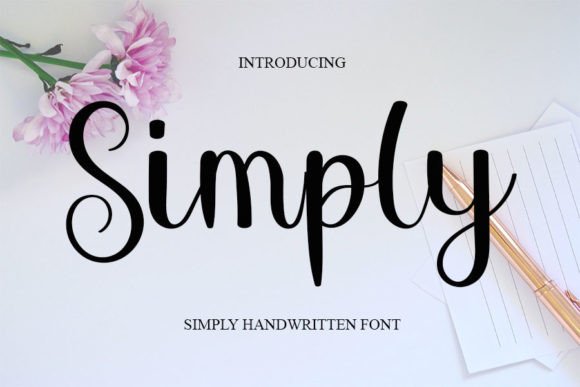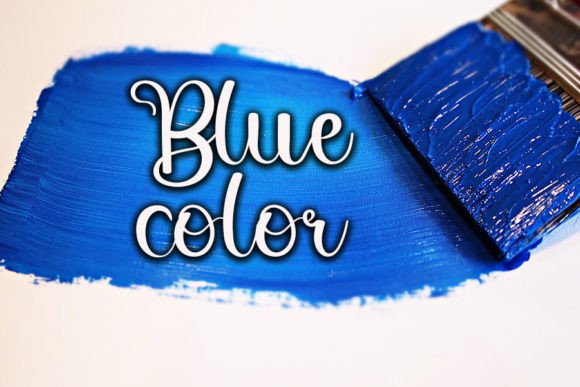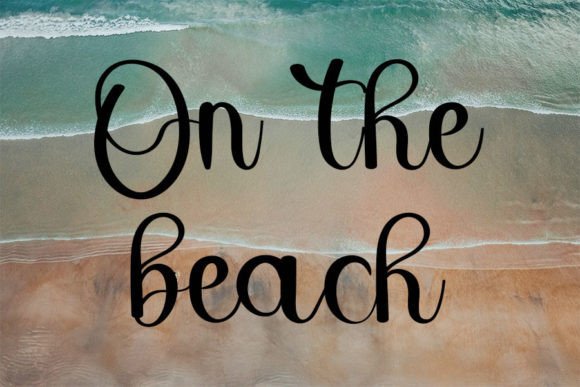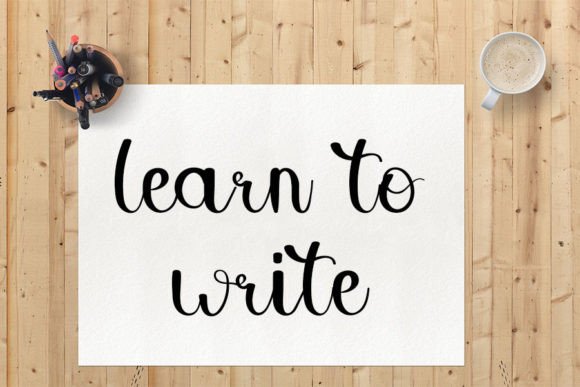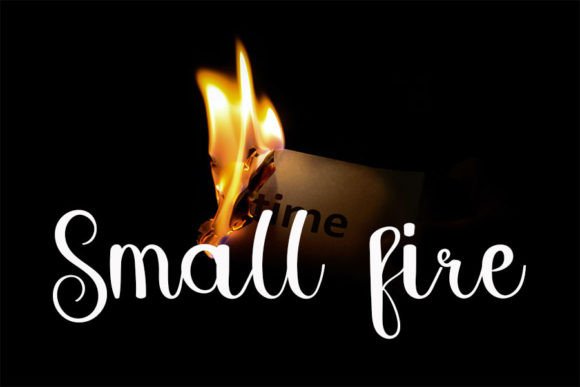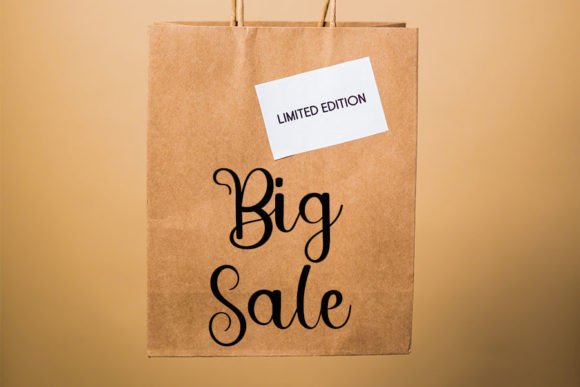
Simply Font
About Simply Font
“Simply” is a lively and colorful handwritten font that has been thoughtfully designed with a hint of elegance. Combining cleanliness with a touch of quirkiness, this font is an ideal choice for a wide range of creative applications, making it a perfect fit for your logos, branding, social media, and crafty DIY projects.
The “Simply” font brings a sense of vibrancy and character to your designs. Its colorful and playful nature adds a unique touch, making it suitable for projects where you want to infuse a fun and approachable atmosphere.
For branding and logo design, “Simply” can help your business or product stand out with its distinctive and eye-catching appearance. Its handwritten charm exudes authenticity and creativity, appealing to a modern and diverse audience.
In the realm of social media, where visual content is essential, “Simply” can make your posts and profiles visually engaging and memorable. Whether you’re creating graphics, quotes, or promotional material, this font adds a dose of personality to your messages, making them more shareable and relatable.
Crafters and DIY enthusiasts will also find “Simply” to be a versatile and exciting choice. Whether you’re designing homemade goods, crafting decorations, or working on personal projects, this font’s colorful and playful style adds a delightful and personalized touch to your creations.
In essence, “Simply” is a colorful handwritten font that effortlessly combines elegance with a touch of quirkiness. Its versatility makes it suitable for a multitude of creative purposes, from branding and social media to crafting and DIY projects. With “Simply,” you can infuse your work with a sense of liveliness and creativity that resonates with your audience.